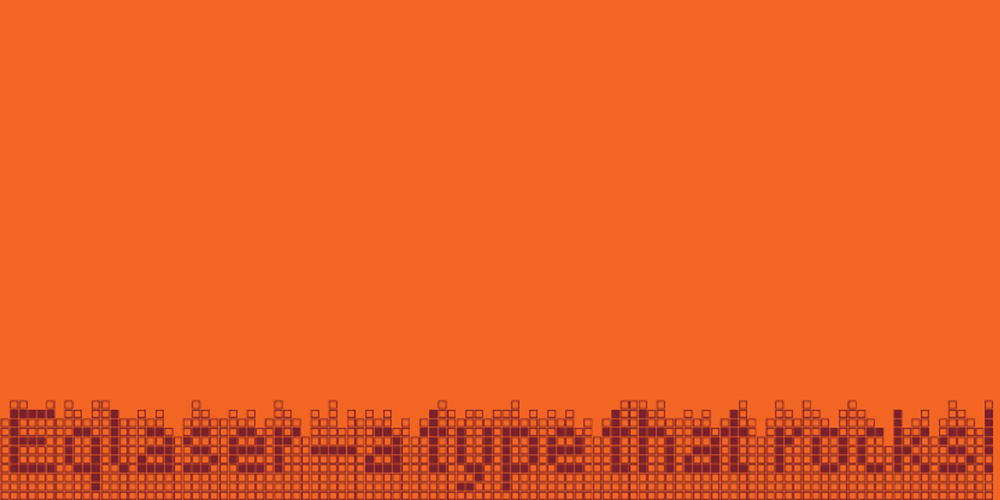
Eqlaser
Eqlaser font
Eqlaser Font Family was designed by Aliaksei Koval and published by Koval TF. Eqlaser contains 1 styles and family package options. Eqlaser is a histogram-styled typeface. Excellent for party posters and music-related prints.